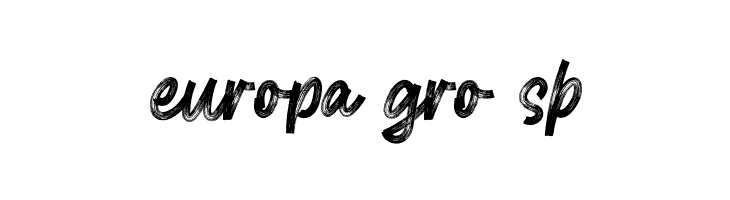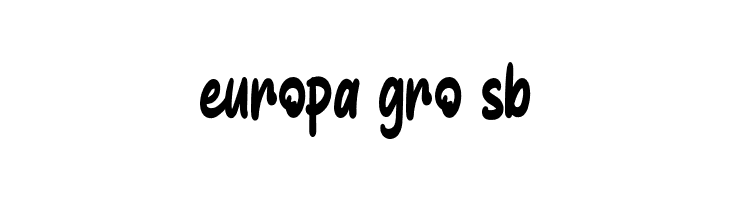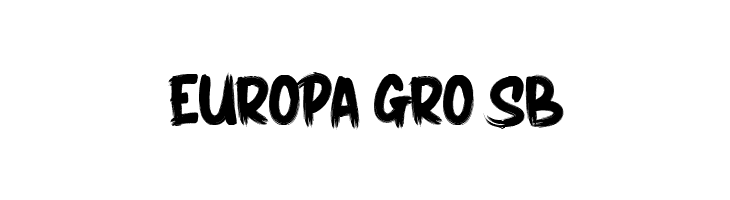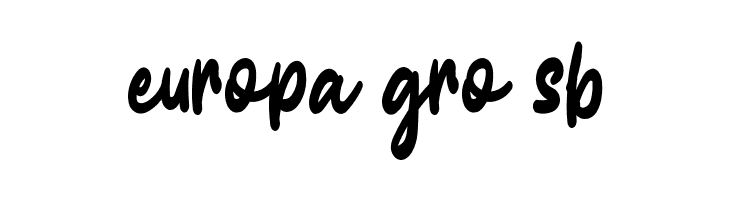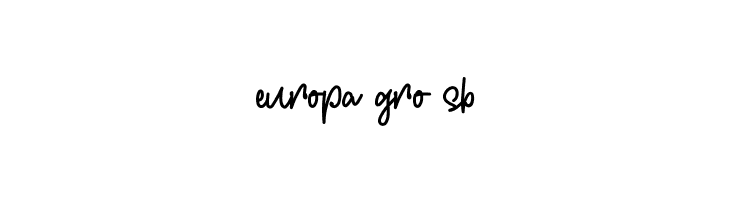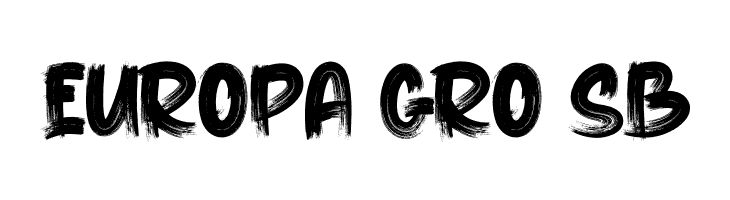
A bold, expressive handwritten font with dynamic strokes and textured appearance.
A bold, hand-drawn font with a playful and energetic style.
A playful, handwritten-style font with bold, rounded characters.
A dynamic, expressive handwritten font with fluid cursive letterforms.
A bold, brush-style font with a dynamic and artistic appearance.
A bold, playful handwritten font with a lively and energetic style.
A casual, handwritten font with a playful and friendly style.
A flowing, handwritten cursive font with elegant, connected letters.
A bold, brushstroke-style font with dynamic and textured characters.
A bold, playful handwritten font with rounded strokes and a casual, dynamic style.